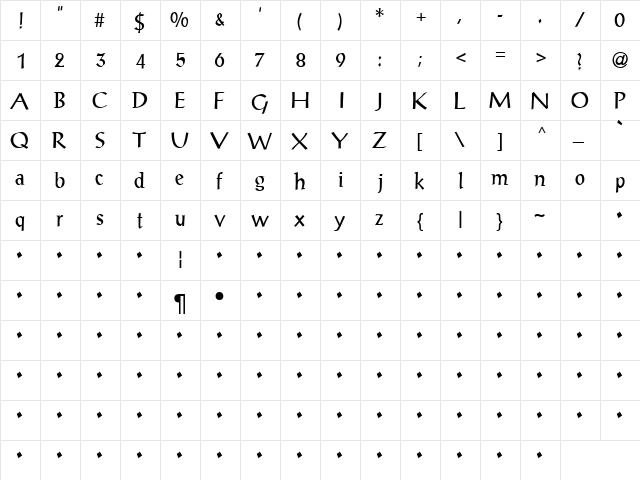
QTAntiquePost Regular
Design Context for QTAntiquePost Typeface
QTAntiquePost wears its vintage influences proudly, with letterforms that recall mid-century signage, classic packaging, and nostalgia-driven design.
Font Pairing: Combine QTAntiquePost with a simple slab or neutral sans — period-accurate companions reinforce the vintage feel without competing for attention.
Pro Tip: Lean into QTAntiquePost's period character by pairing it with aged paper textures, muted colour palettes, and vintage illustration styles.